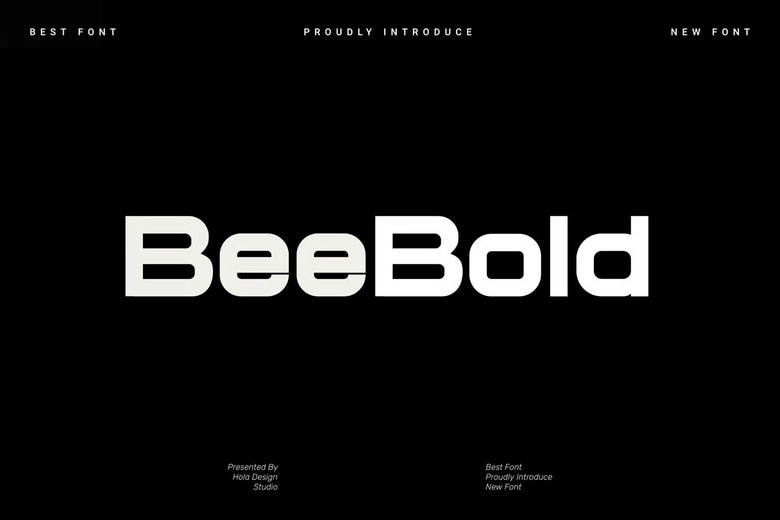
BeeBold Font
BeeBold is a clean, high-quality sans-serif font created by holadesignstd. You can download it for free and use it for personal projects. It works well for elegant logos, branding, travel ads, magazines, beauty products, packaging, quotes, or as a stylish text overlay on any background.
BeeBold Sans Serif Font